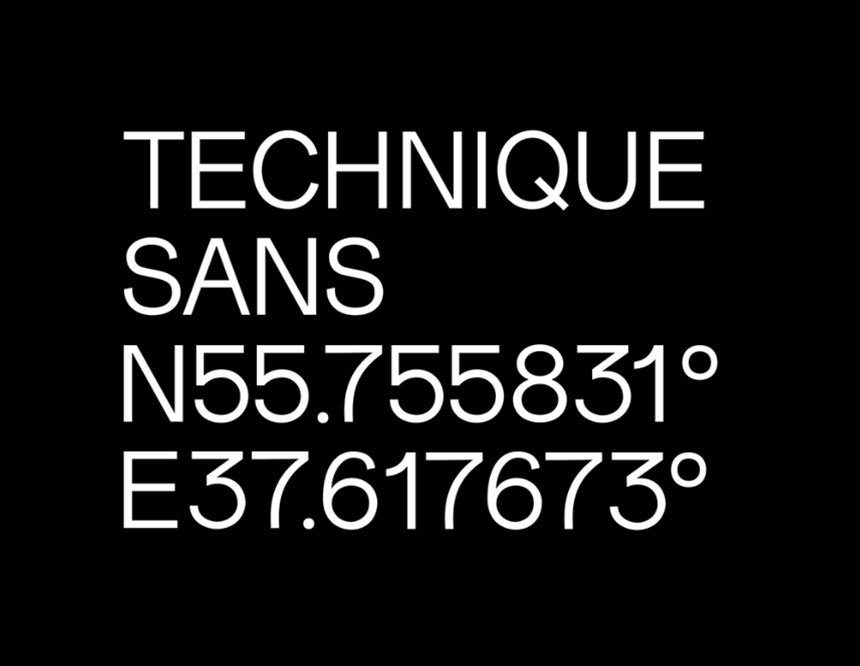
Technique Sans Serif Font
Hello! Technique Font is a free modern grotesque sans serif font. Technique is a new elegant sans serif typeface featuring uppercase & lowercase letters plus multilingual support. This typeface is perfect for headlines, big text, branding, logotypes & display usage.